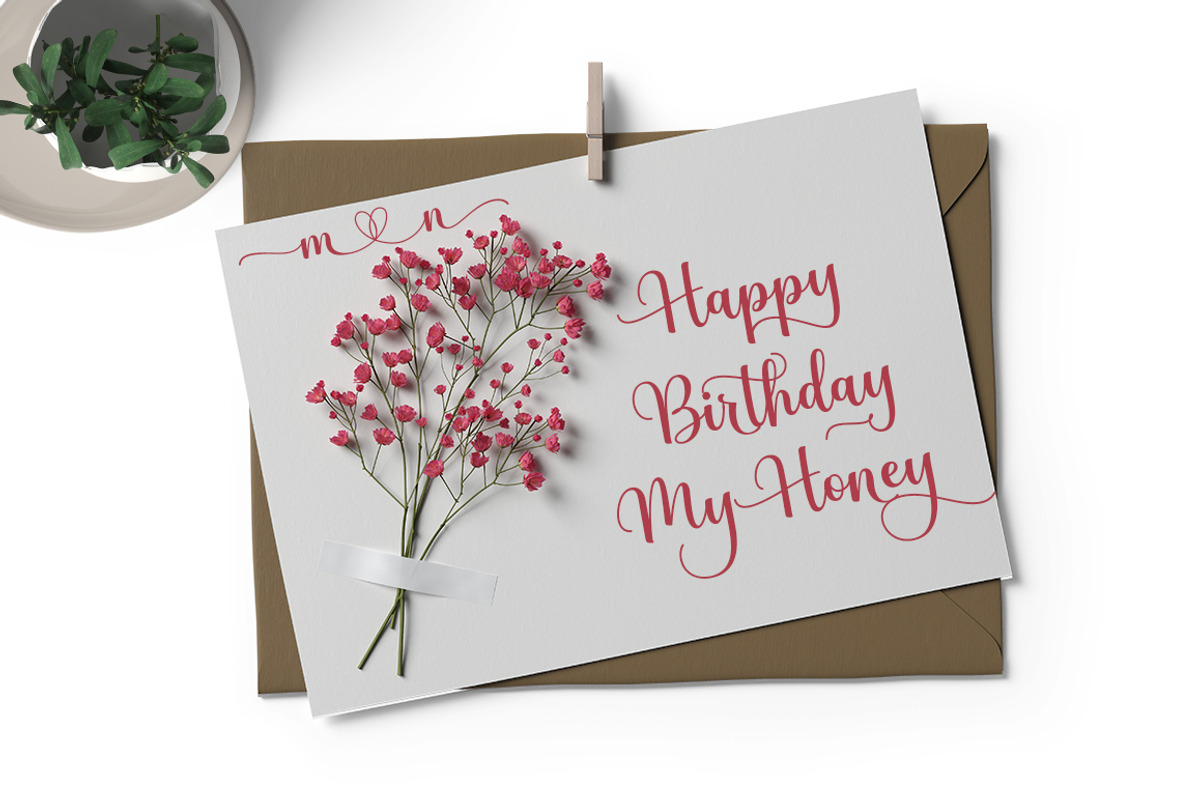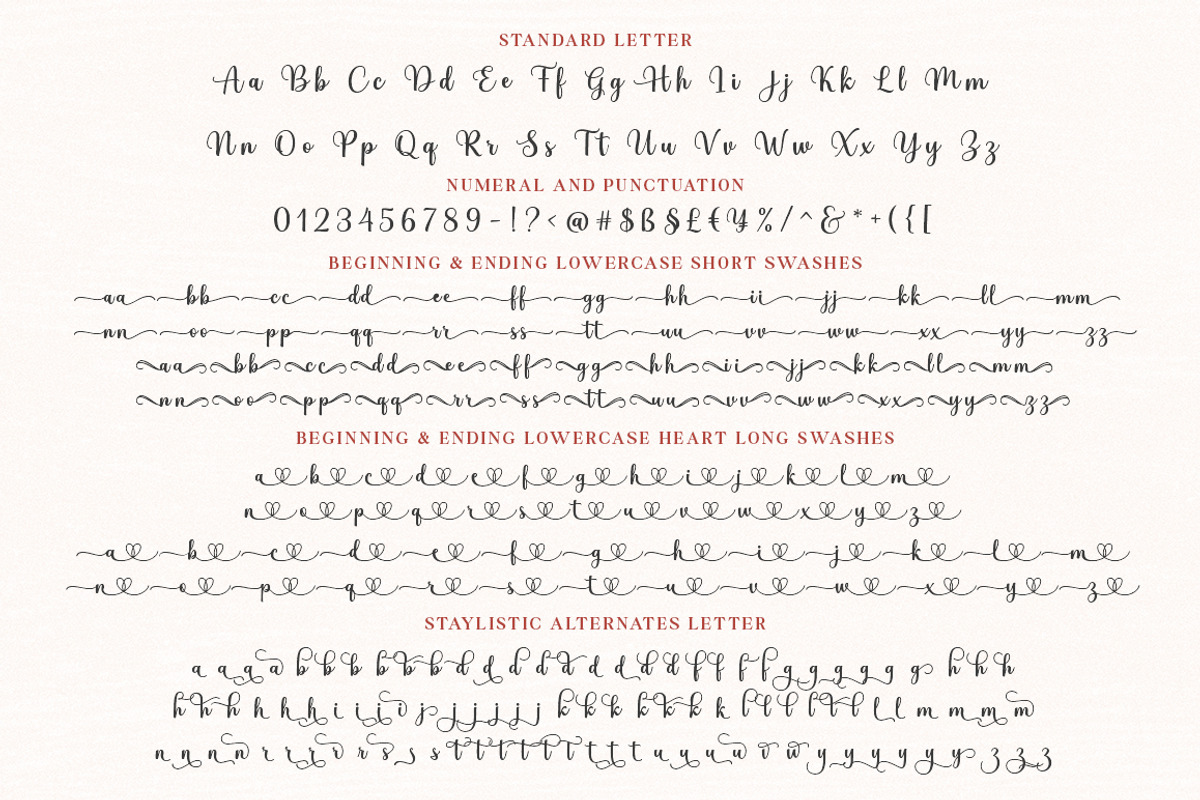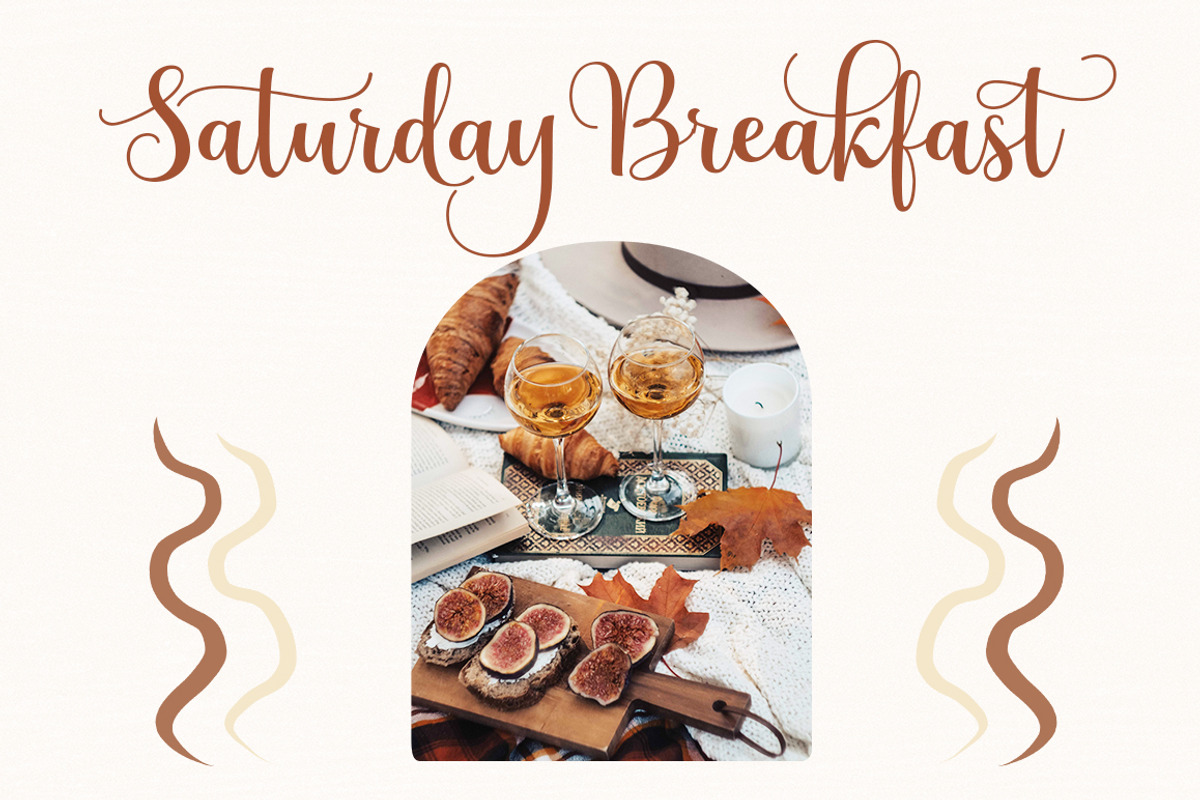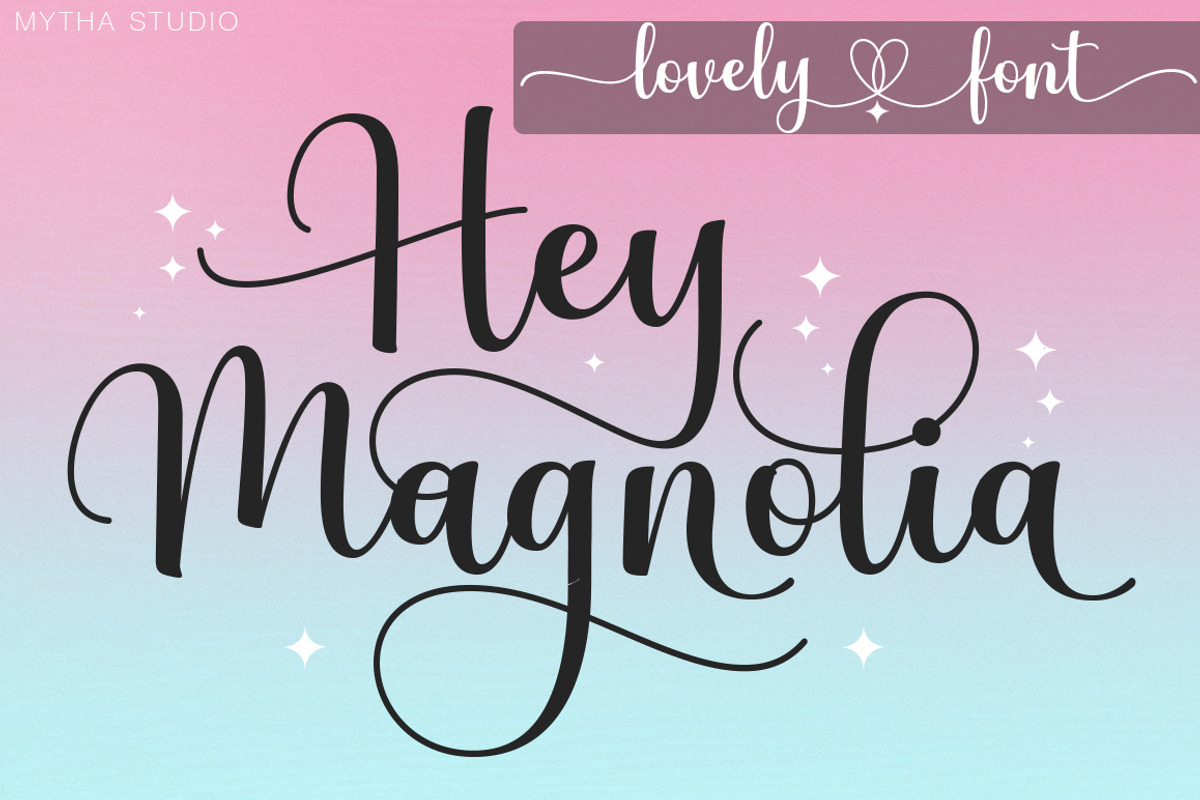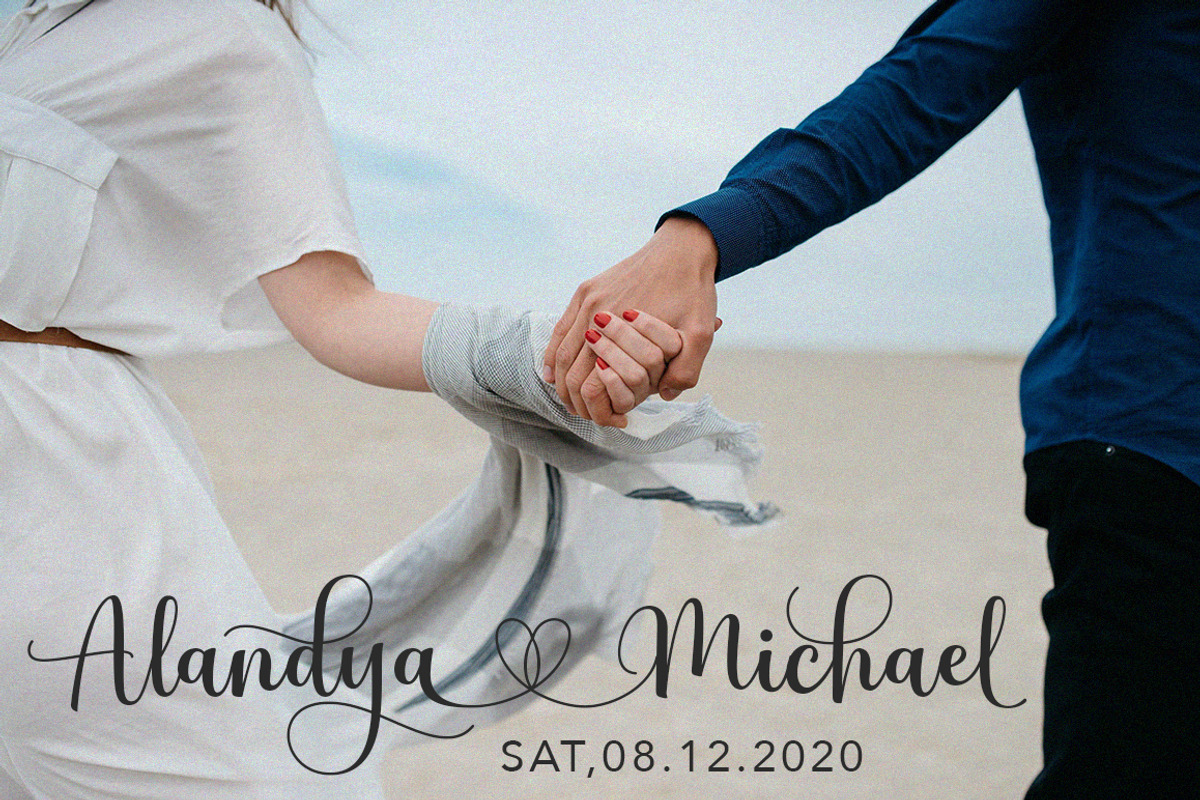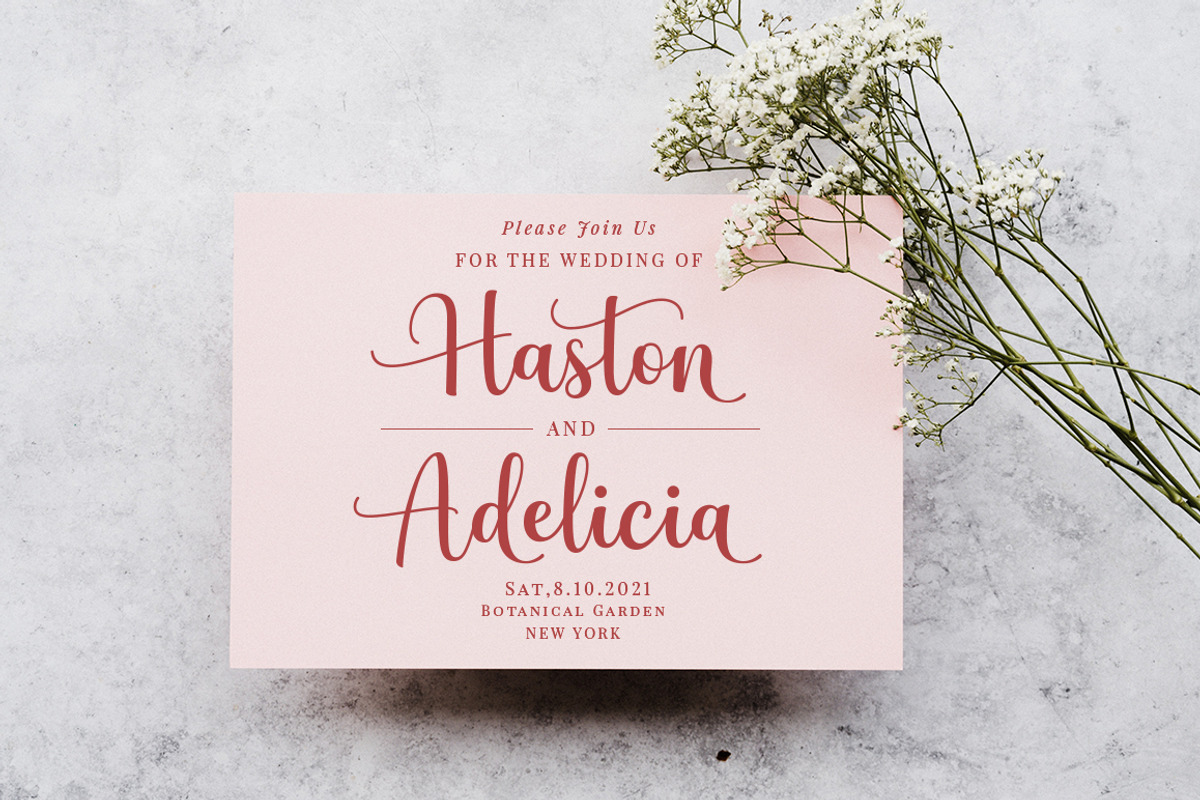
Hey Magnolia - Lovely Font
Hello everyone, I would like to introduce my newest font Hey Magnolia Script is a beautiful modern calligraphy typeface, I hope you will be interested in this font, if you want to use it for your work. This font can be used easily and simply because there are many features in it. contains a complete set of lowercase and uppercase letters, assorted punctuation, numbers, and multilingual support. font also contains multiple ligatures and many contain alternative Style Stylistic Sets such as a heart swash alternative to combine with two words, for example: Ashley-Haston. You can see an example in the image above.
Hey Magnolia is very suitable for market designs being developed today, this font has a stylish, trendy, natural and soft font, with this font you can take advantage of opportunities every moment is a great way to highlight the celebration of the best of the party, because this font will be an advocate for the purposes such as wedding invitations, branding, parties, graduations, birthdays, gatherings, etc.